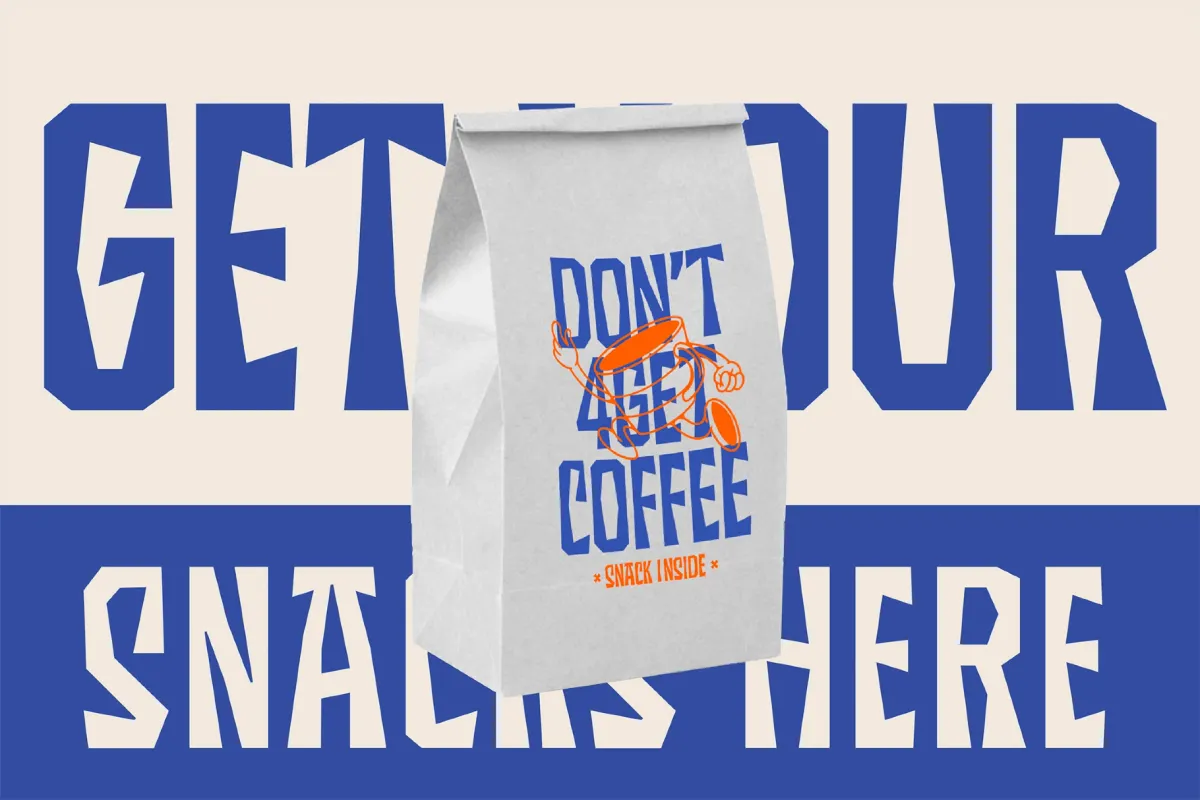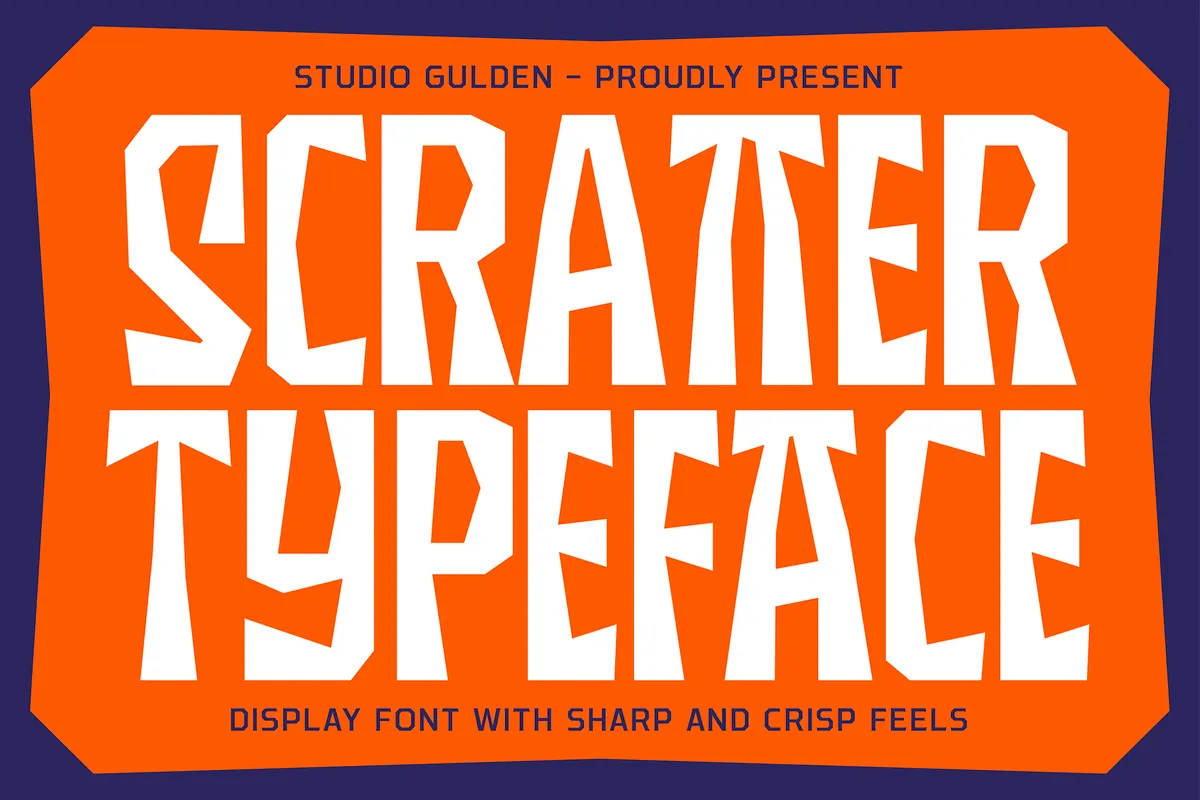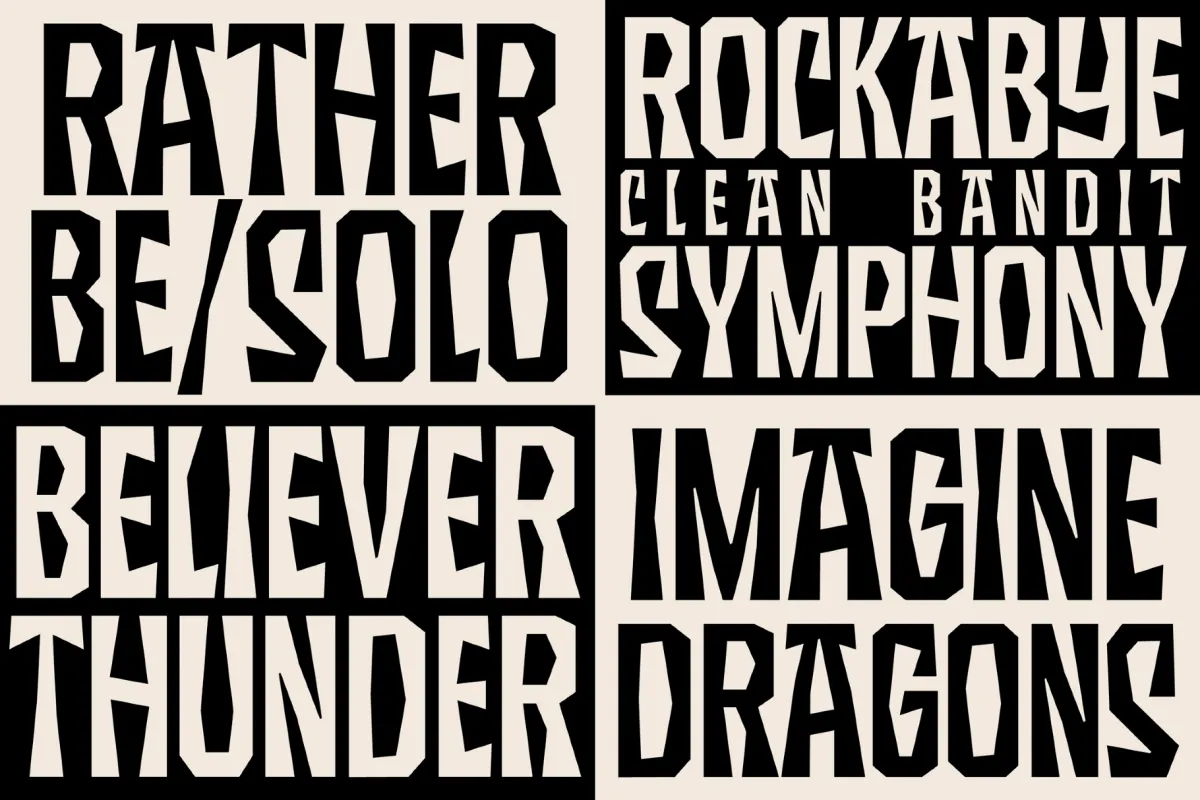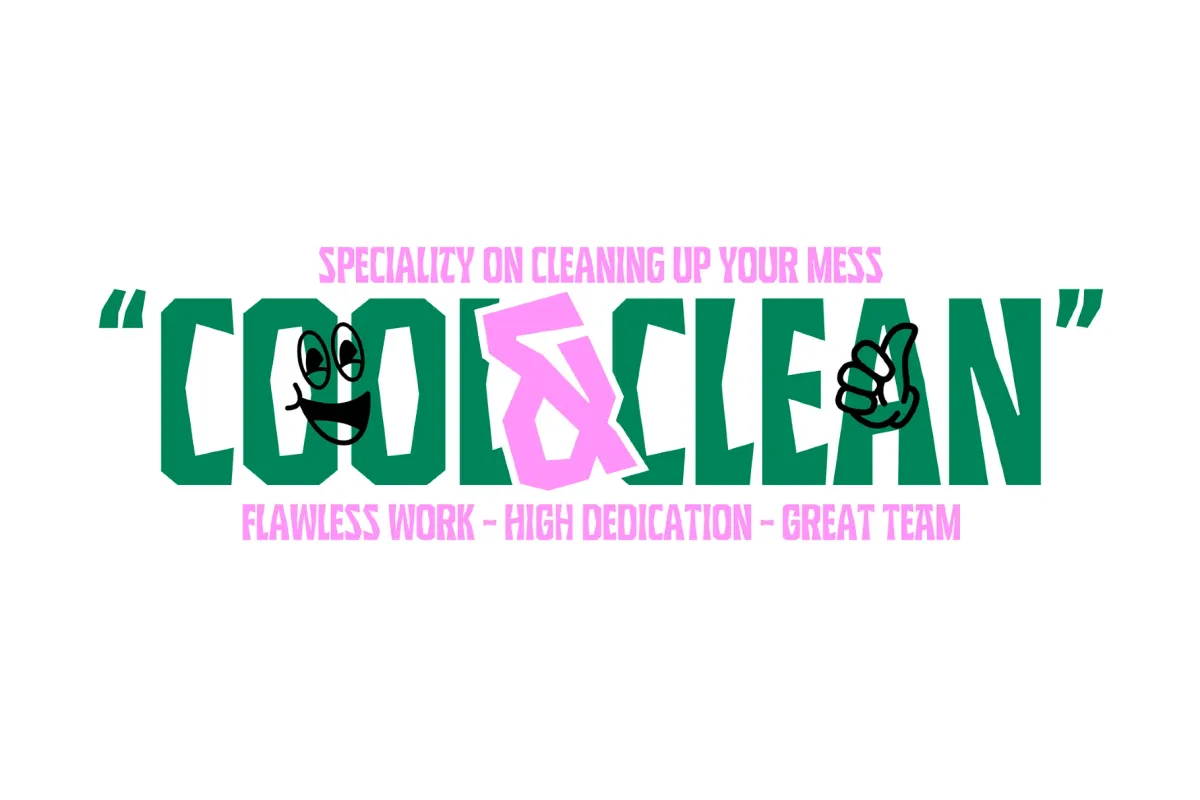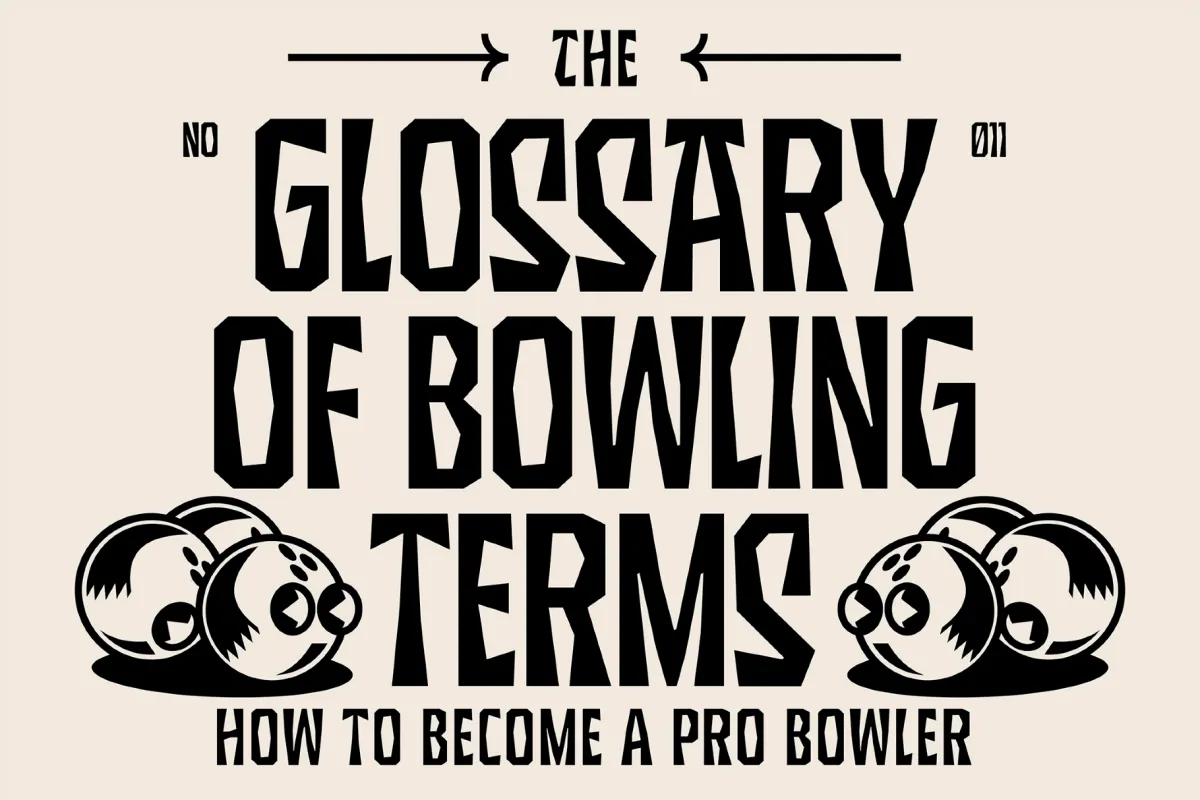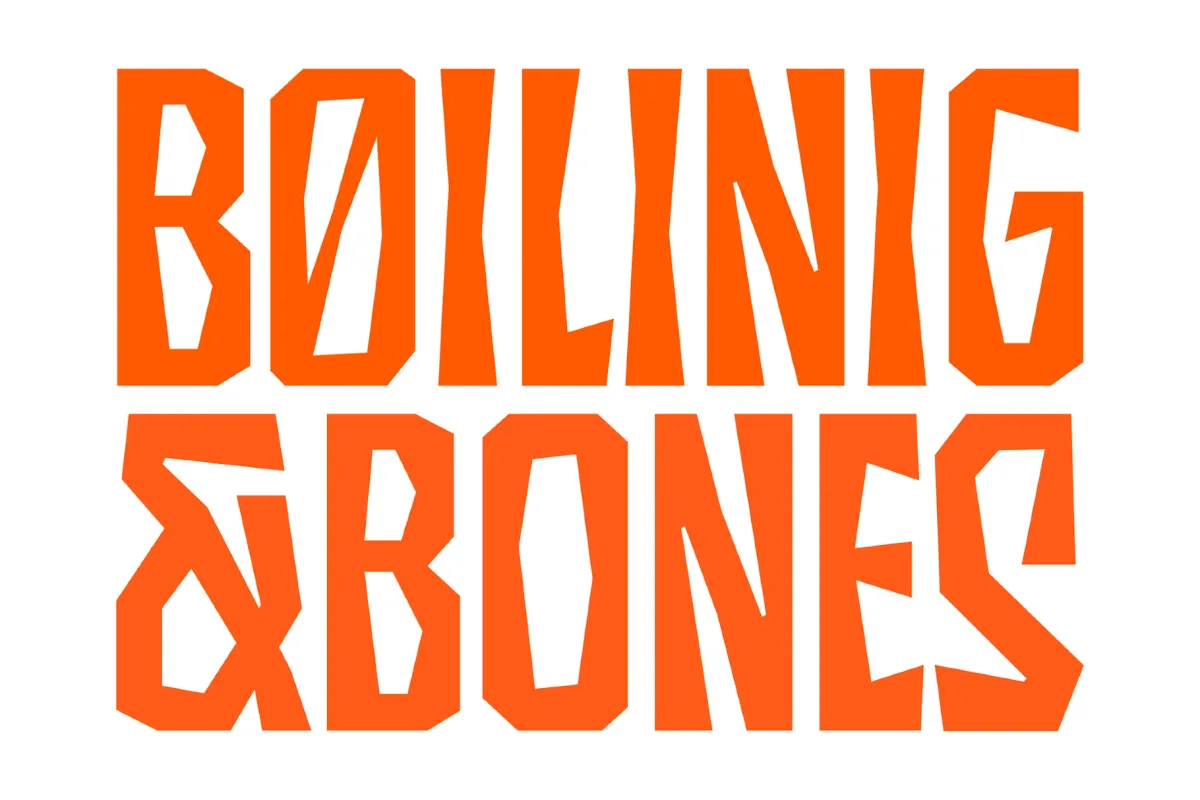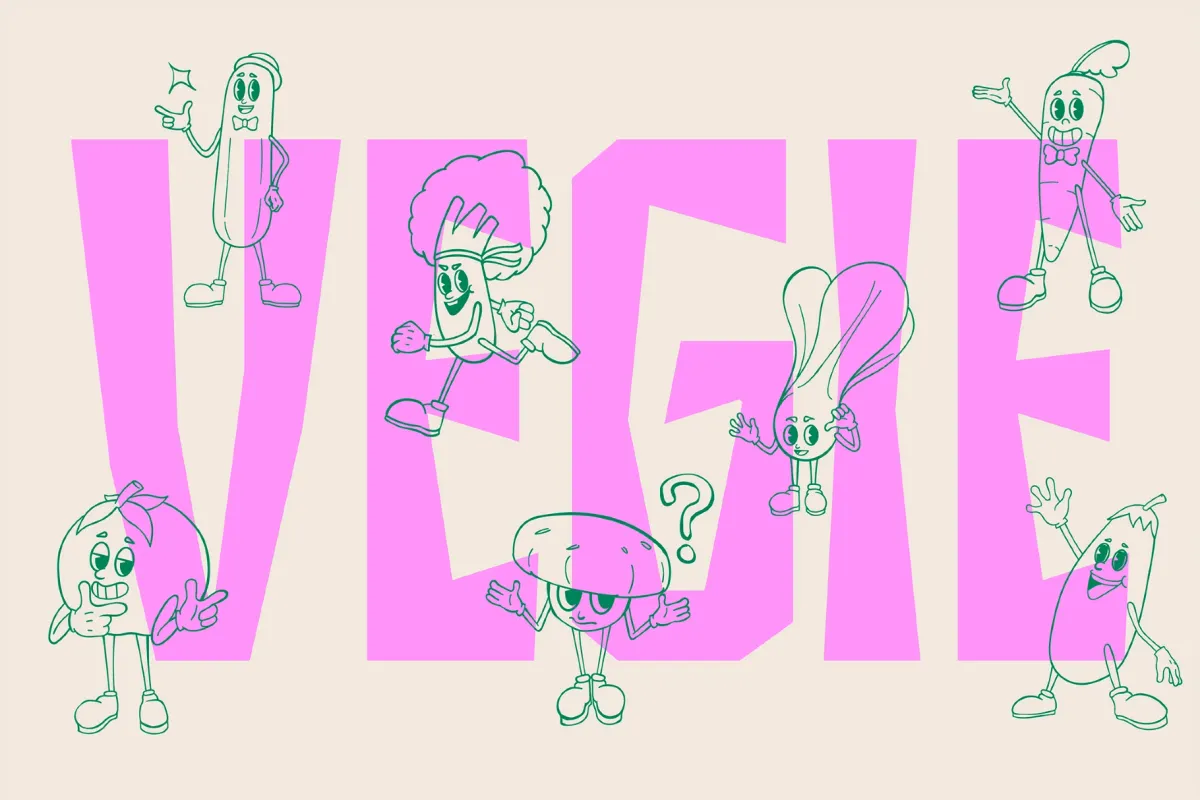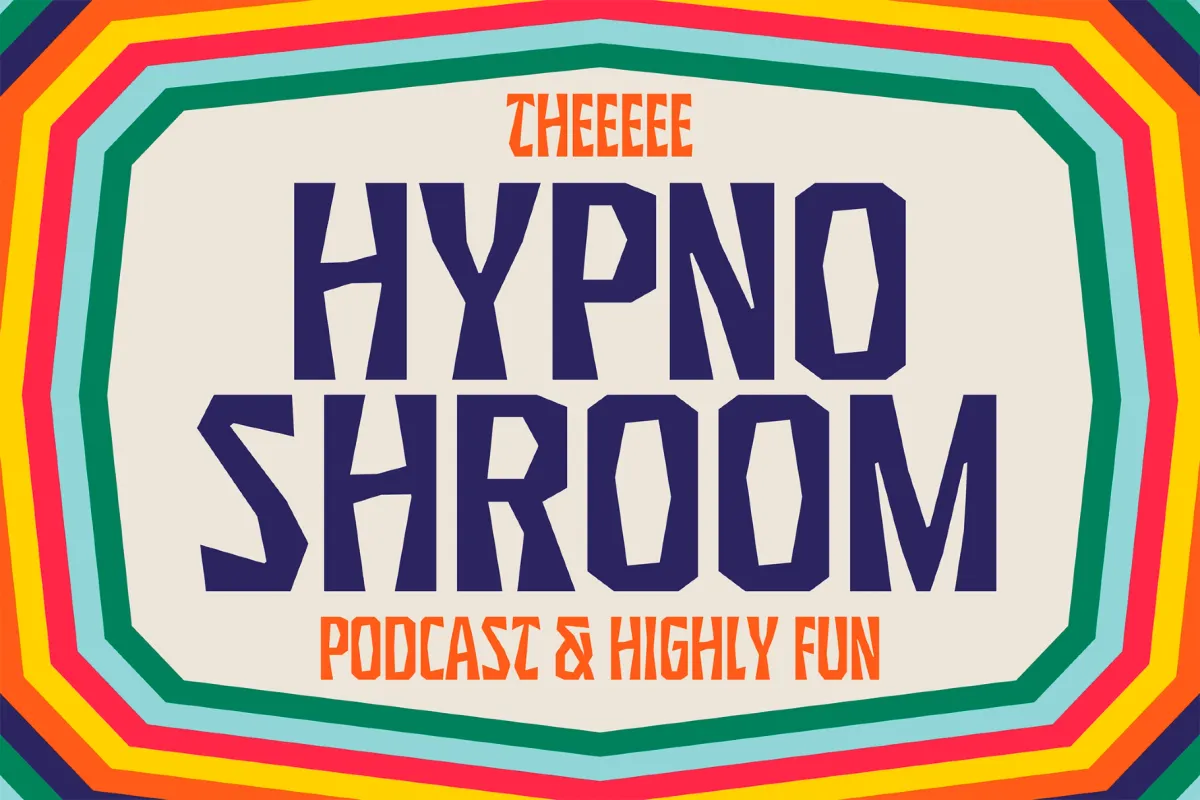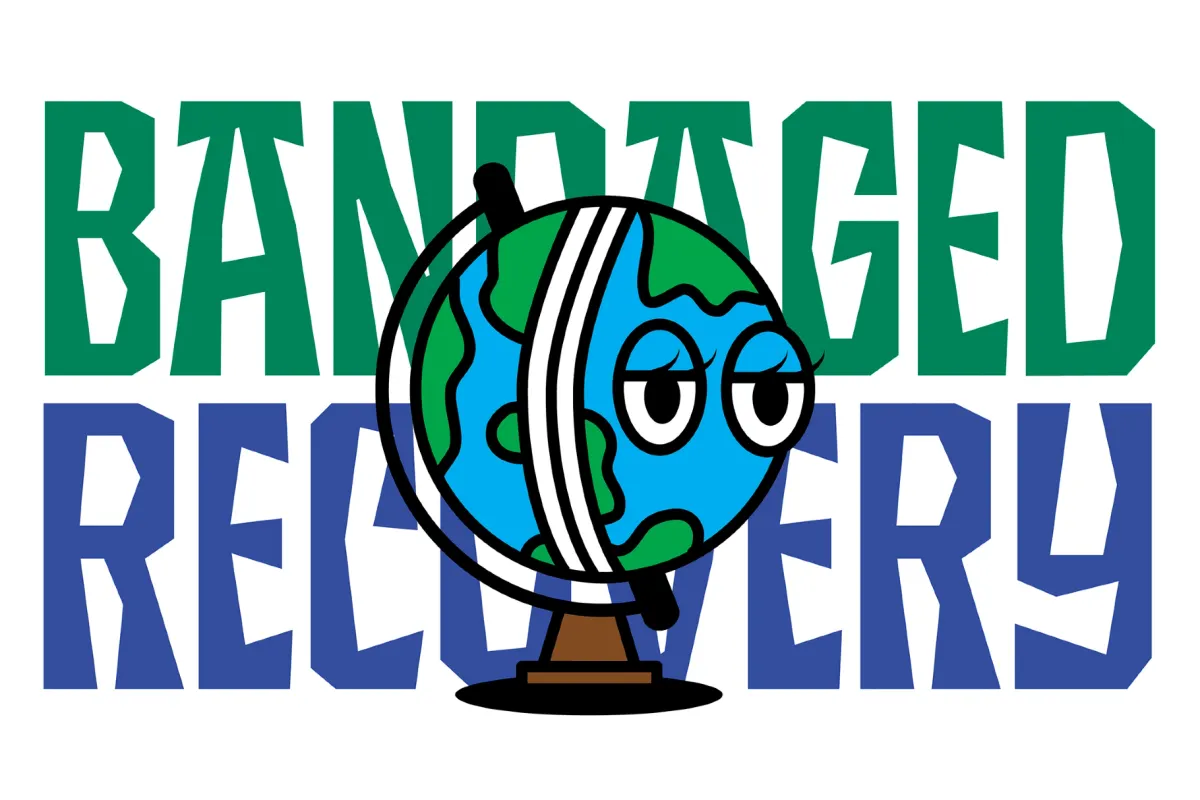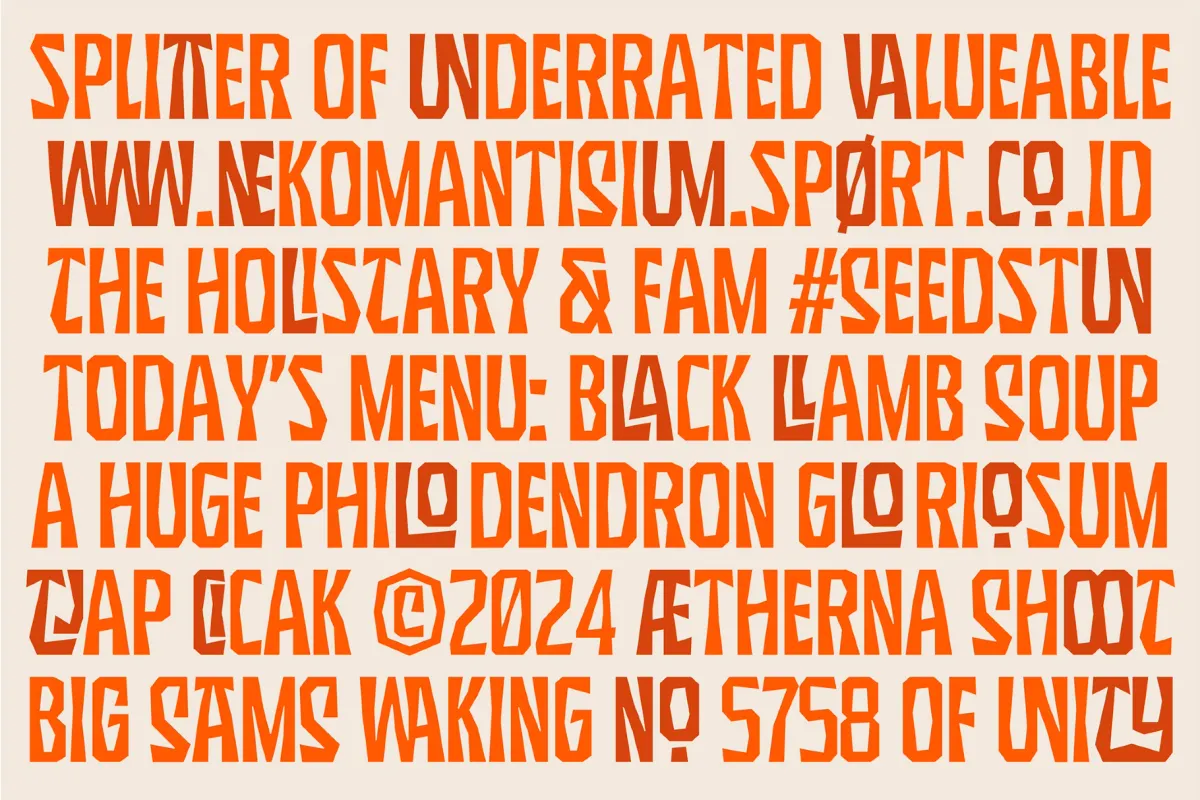
SG SCRATTER
SG Scratter is a razor-edged display typeface defined by its angular tension and geometric boldness. It's rooted in the aesthetics of mid-century hand-cut lettering and brutalist poster art — and distills its energy into sharp, elongated letterforms with exaggerated verticality and octagonal curves.
Stylistically, SG Scratter echoes the DIY irreverence of punk-era flyers, Soviet constructivist posters, and early digital techno types. The uppercase dominates the stage with a theatrical, stencil-like construction, while the lowercase retains legibility with more subdued geometry. Ideal for: packaging, streetwear, zines, music artwork, event branding, etc.